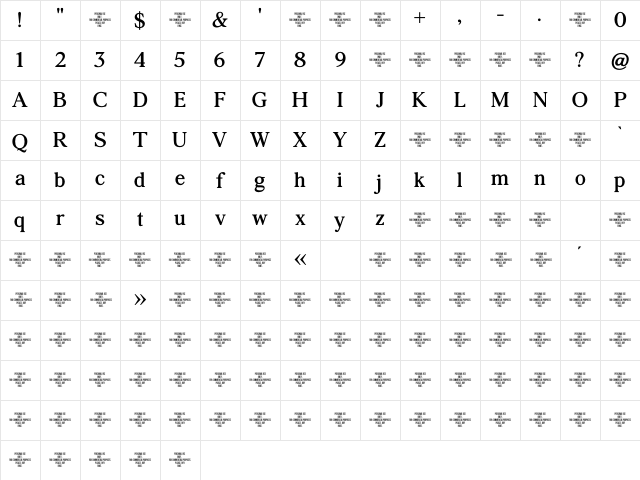
Agatho Bold Free Font
Agatho Bold
Designer: Andrii Shevchyk
Complete Agatho Bold glyph index. Displaying only characters natively supported by Agatho Bold font.
Design Context for Agatho
Agatho is a composed and adaptable typeface that performs quietly and consistently across a wide range of design contexts. Its bold stroke weight gives it real presence on the page.